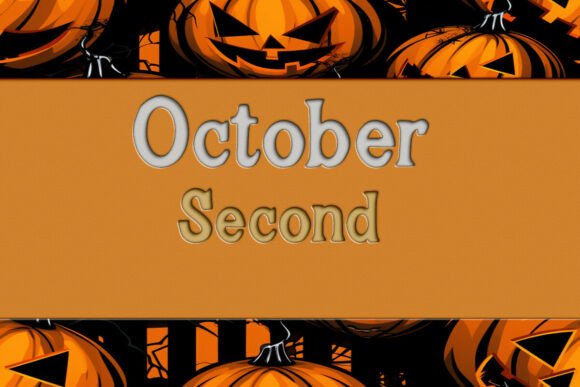
Introduction to October Second Font
Do you remember the moment when a font speaks to you, and you can’t help but be captivated by its unique charm? For designers, this moment is a treasure trove of inspiration, and it’s exactly what the October Second Font offers. With its high-quality design, this versatile font is the perfect addition to any creative project.
Whether you’re working on a T-shirt design, a sticker, or a magazine layout, the October Second Font is sure to breathe life into your project. Its transparent background and free download option make it an excellent design resource for both professionals and hobbyists. What’s more, its ability to add a unique touch to any project makes it a valuable asset for designers looking to elevate their work.
In this article, we’ll delve into the world of the October Second Font, exploring its versatility and how it can transform your creative projects into attention-grabbing masterpieces.
Key Features of October Second Font
- Unique characteristics include a distinctive blend of modern and vintage elements, making it perfect for creative projects that require a touch of elegance and sophistication.
Honest Review: October Second Font
As a designer, I’m always on the lookout for high-quality design resources to elevate my creative projects. The October Second Font has caught my attention, and I’m excited to share my thoughts on it.
- ✨ Beautifully crafted letters with a unique aesthetic
- ⚠️ Some users may find the font too bold or overwhelming in certain contexts
Overall, I’m impressed with the October Second Font’s design and functionality. While it has some limitations, it’s a great resource for designers looking to add a unique touch to their creative projects. With its high-quality design and transparent background, it’s definitely worth considering for your next design endeavor.
The October Second Font is perfect for a variety of creative projects, including branding, marketing materials, and digital art. Its high-quality design and transparent background make it a versatile tool for designers of all levels.
To get the most out of the October Second Font, experiment with different font sizes, colors, and combinations. You can also use the font in conjunction with other design elements to create a unique and eye-catching design.